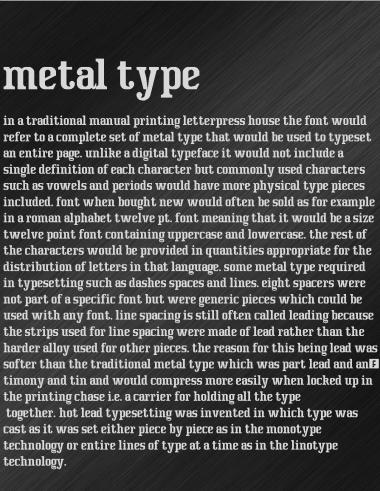
• A better version of wanted. Looks like Ohm Run Slab but not nearly as good.
Beautifully crafted - well worth a 10. U/C to come I hope :)
Uh oh. I see a FontStruct "F-block" after the word "antimony" in your terrific sample pic. Looks like a hyphen is needed for this beautiful font. Nice work! ;^)
@Goatmeal Good eye! I tried to get all those out and @p2pnut uc, numbers & punctuation coming soon.
Terrific slab serif font. 10/10.
Awe-some! Even better than Ohm Run Slab! (& better than Wanted 2.1 in my opinion) 10/10 from me too
Whaat? No. Ohm Run Slab is quite possibly the best FontStruction out there! This is way inferior.
Incredible work. Ha, I remember when you were a little FontStruct whelp . . . you had like three FontStructions . . . and now you're dishing out these amazing creations. Amazing work, as usual!